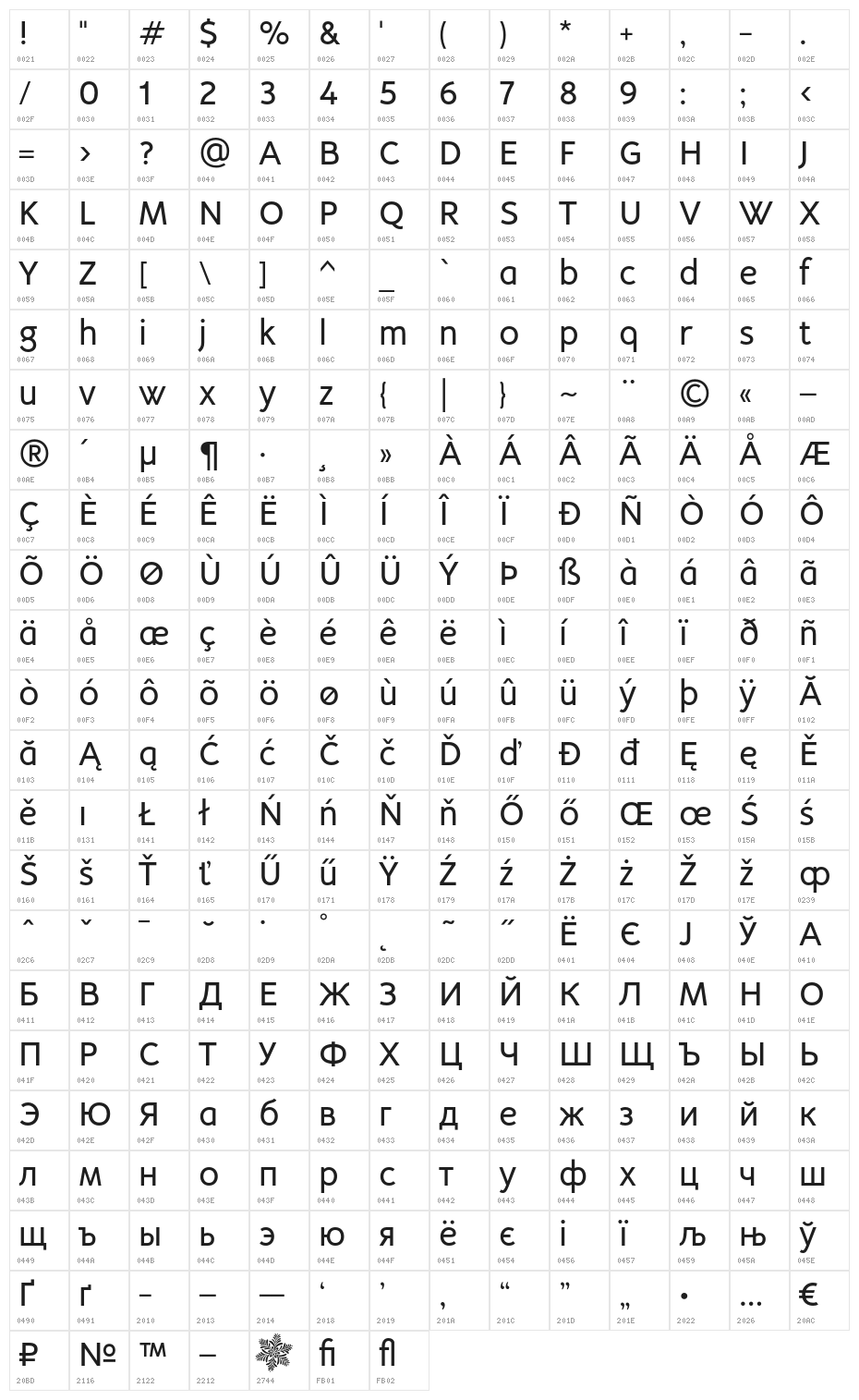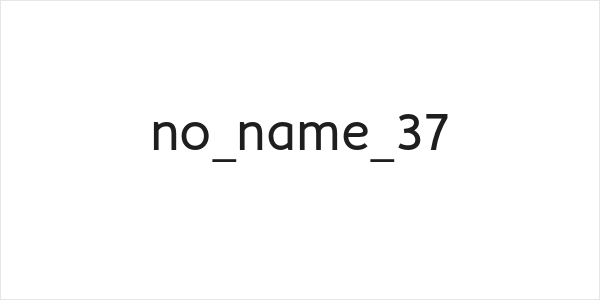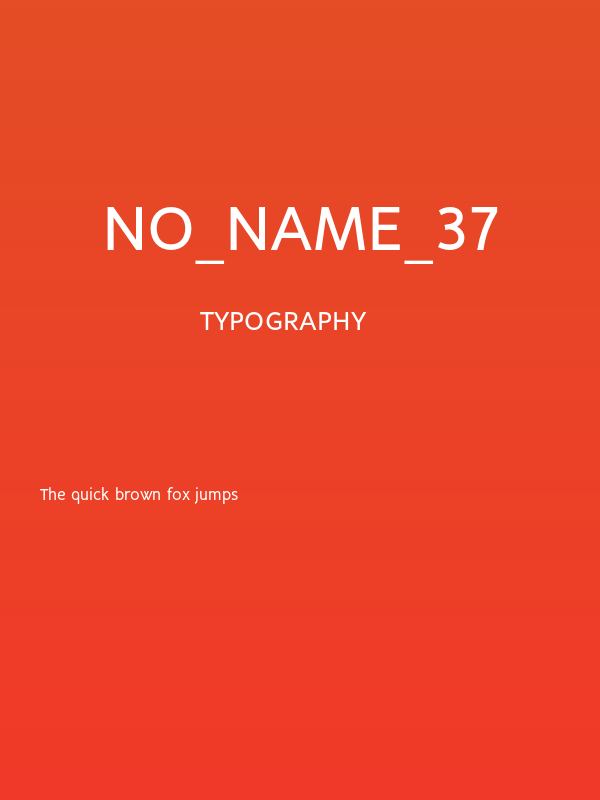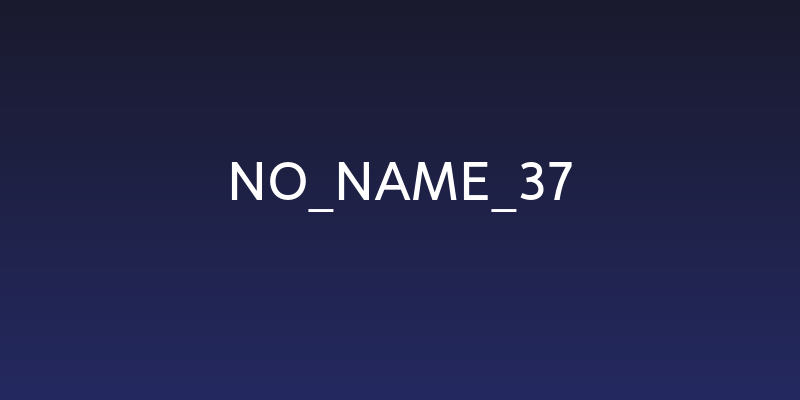
no_name_37 Font
no_name_37 Description
This font features a clean and modern sans-serif design with smooth curves and a balanced structure. The uppercase letters are bold and prominent, while the lowercase letters maintain a consistent height, providing a harmonious look. The numerals are clear and easily distinguishable, making them suitable for various applications. Special characters are well-integrated, ensuring versatility in usage. The overall appearance is sleek and professional, ideal for contemporary design projects.
| Proposed Projects | Ideal for branding, web design, advertising, and editorial layouts. |